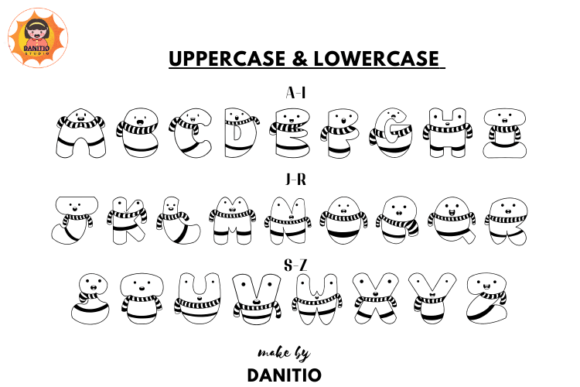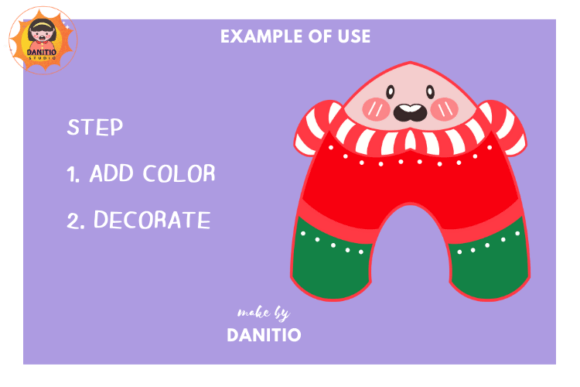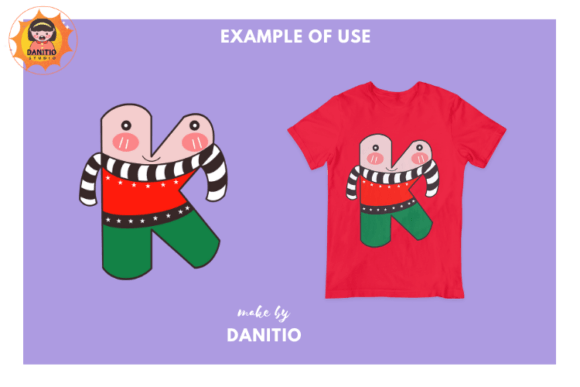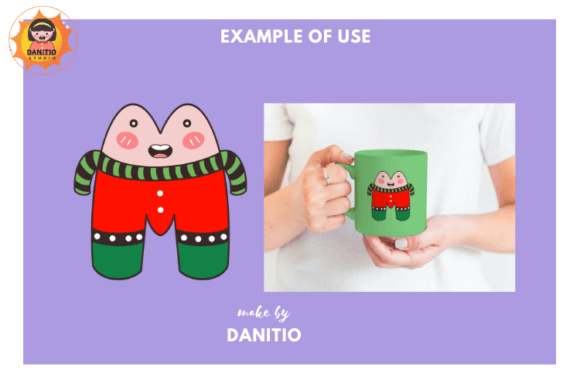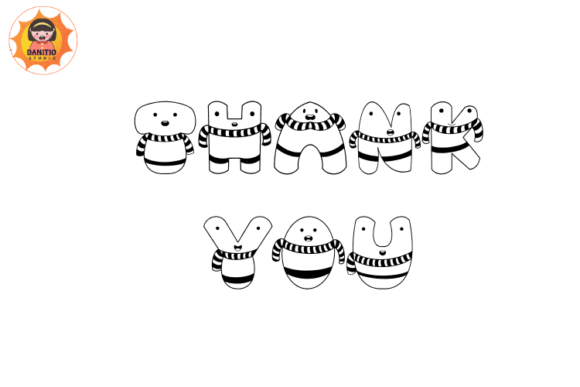
Introduction to Human Scarf Font
Have you ever been stuck in a creative rut, struggling to find the perfect design element to elevate your project? As a designer, you know that the smallest detail can make all the difference. That’s why I’m excited to share with you a game-changing resource that’s sure to bring a smile to your face: the Human Scarf Font.
This delightful font is more than just a pretty face – it’s a design resource that’s waiting to be unleashed on your next creative project. With its playful, quirky design and hand-drawn Christmas scarf details, the Human Scarf Font is the perfect addition to any design. Whether you’re working on a festive holiday project or simply want to add a touch of whimsy to your designs, this font is sure to deliver.
Key Features of Human Scarf Font
- Unique, Hand-Drawn Design: Human Scarf Font features a distinctive, hand-drawn style perfect for creative projects that require a personal touch.
- Perfect for Creative Projects: This font is ideal for use in graphic design, branding, and other creative projects where a unique, human touch is desired.
- Supports Various Languages: Human Scarf Font supports a wide range of languages, including Latin, Cyrillic, and Greek alphabets, making it a versatile design resource.
Honest Review: Human Scarf Font
I recently stumbled upon the Human Scarf Font and I’m excited to share my thoughts with you. As a designer, I appreciate high-quality design resources that can elevate my creative projects. The Human Scarf Font definitely delivers.
- ✨ Unique and quirky design style that adds a touch of personality to any project.
- ✨ High-quality font files that are crisp and clear, even when scaled up or down.
- ✨ Transparent background option, making it easy to use with various design elements.
- ⚠️ Limited character set, which may not be suitable for longer texts or paragraphs.
- ⚠️ Not ideal for use in small sizes, as the font may become pixelated.
Overall, I’m impressed with the Human Scarf Font and I think it’s a great addition to any designer’s toolkit. While it may have some limitations, its unique design style and high-quality files make it a worthwhile download. I’d definitely recommend it to designers looking for a fun and creative font to add some personality to their projects.
Tips for Getting the Most Out of Human Scarf Font
Use Human Scarf Font in creative projects that require a unique and eye-catching design. Experiment with different font sizes, colors, and styles to achieve the desired effect. You can also use Human Scarf Font in conjunction with other design resources to create a high-quality design.
Human Scarf Font is commonly used in social media graphics, posters, and flyers. It is also used in branding and marketing materials, such as business cards and brochures. The font’s unique design makes it perfect for creative projects that require a touch of elegance and sophistication.